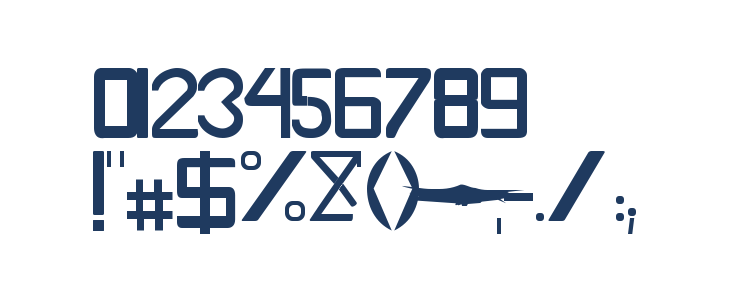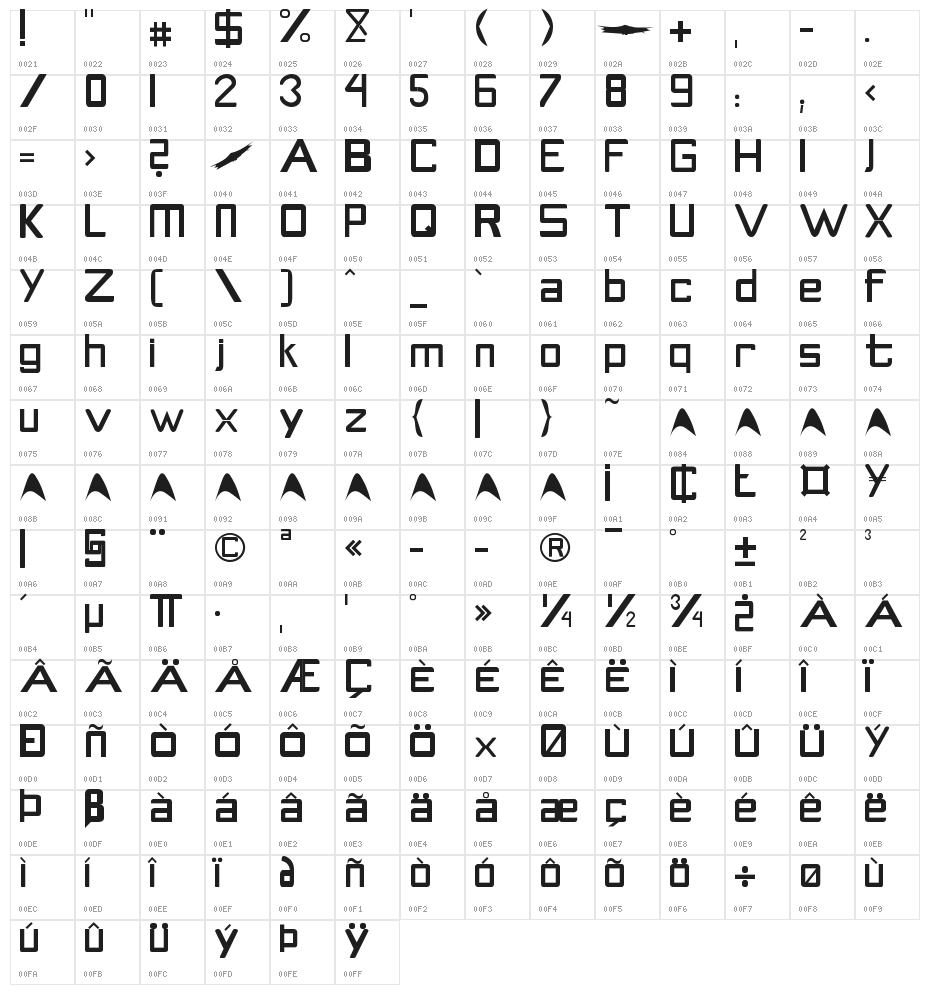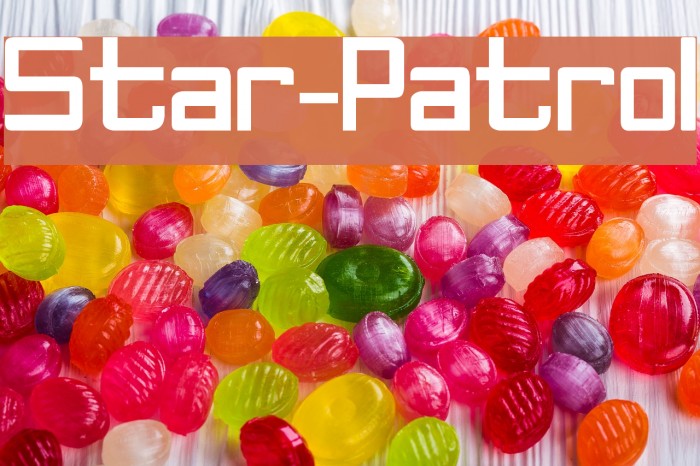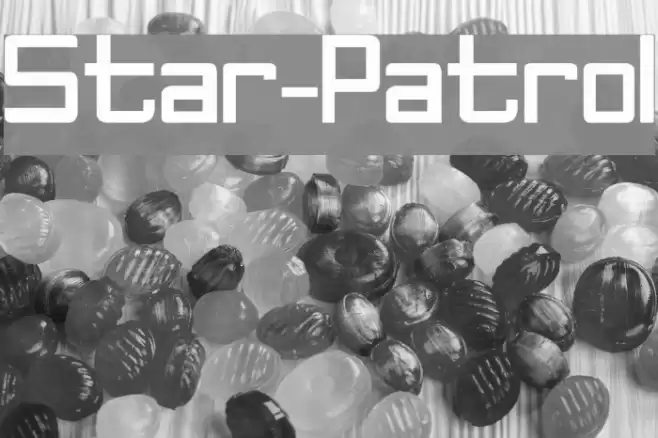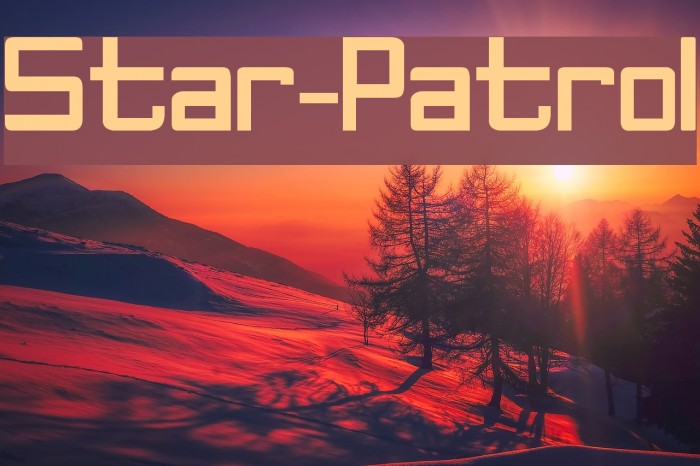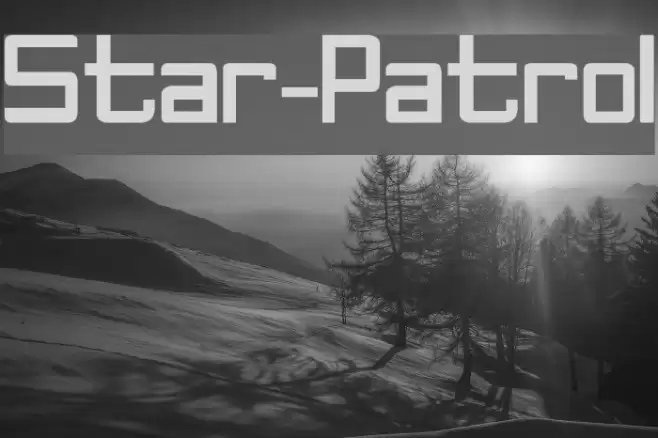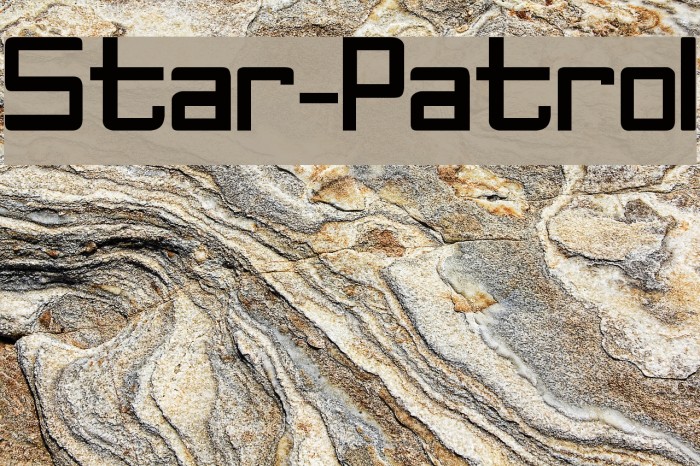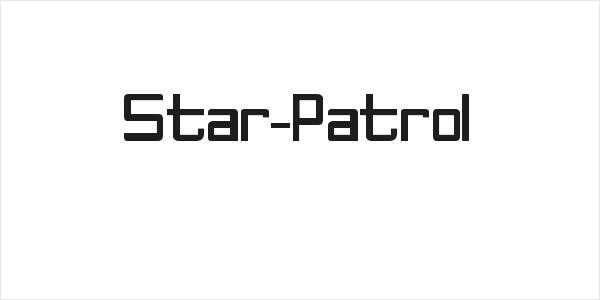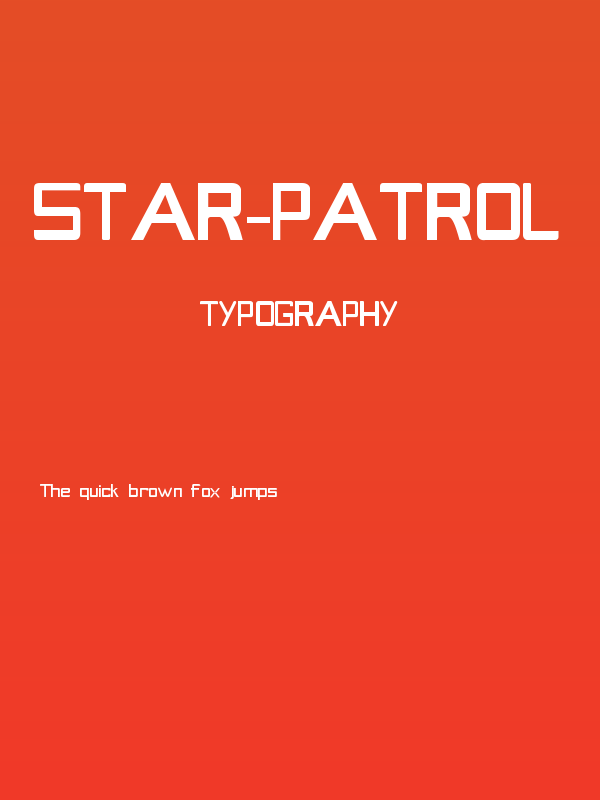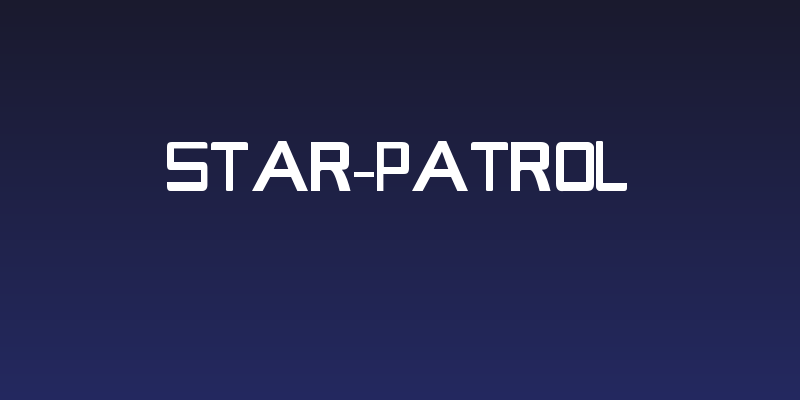
Star-Patrol Font
Star-Patrol Description
This font features a futuristic and angular design, characterized by its bold and geometric letterforms. The uppercase letters are uniform in height, with sharp angles and straight lines that convey a sense of modernity and precision. The lowercase letters maintain a similar style, with a slightly more condensed appearance. Numbers are bold and consistent with the overall angular theme, ensuring readability and impact. Special characters are uniquely designed, adding to the font's distinctive style. This font is ideal for projects that require a modern, tech-inspired aesthetic.
| Proposed Projects | Ideal for sci-fi themed designs, tech branding, video game interfaces, and futuristic posters. |